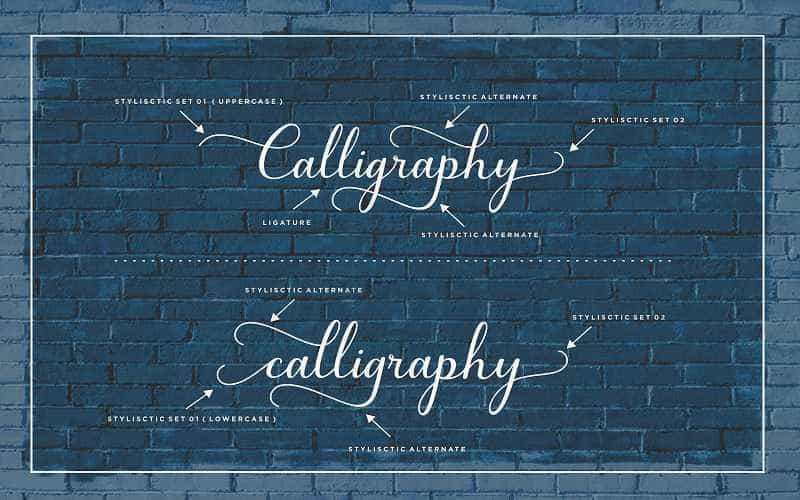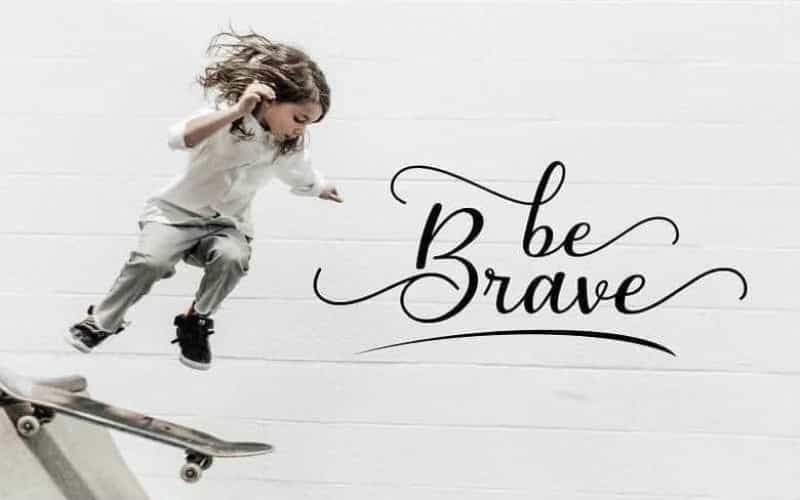
Is it true that you are looking for some beautiful font to utilize in any accompanying work? Look no further! Behold Bluebell by Sronstudio: conceived as a modern calligraphic typeface with many stylistic variables, Bluebell is natural, elegant… and that’s very well suitable for branding, logos usage, wedding designs, advertisements, social networks, packaging, labels, photography watermarks, logo designs, watermarks and… special occasions, watermarks, and so on and so forth – or anything you fancy in particular.